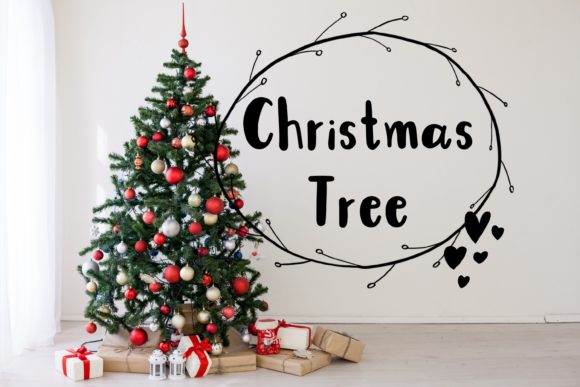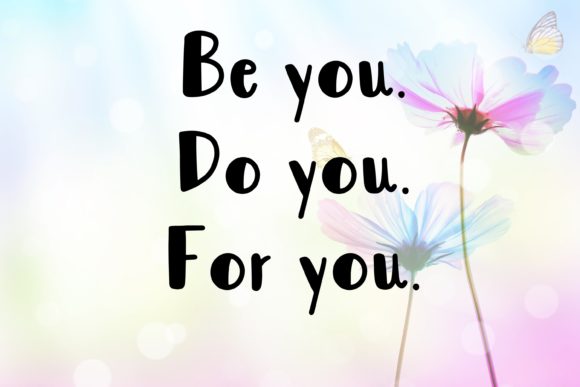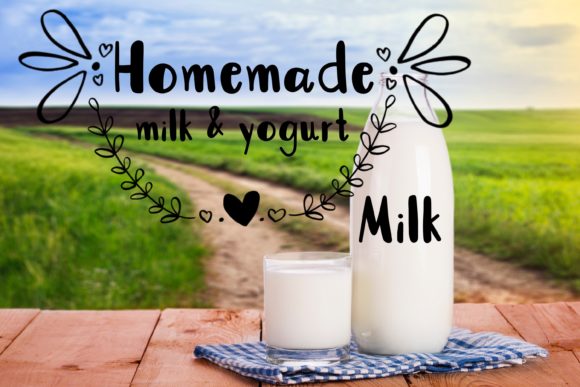
Introduction to Pastel Unicorn Font
As a designer, I still get that rush of excitement when I stumble upon a new, high-quality design resource that just makes my creative project pop. It was exactly that feeling I got when I discovered the Pastel Unicorn Font. I was working on a chalkboard quote for a nursery, and I wanted something that would add a personal and realistic touch. That’s when I found this adorable, handwritten font that perfectly captured the whimsy of the pastel colors I had in mind.
The Pastel Unicorn Font is more than just a pretty face – it’s a valuable tool for designers who want to add a touch of authenticity to their designs. With its transparent background and free download option, it’s easy to incorporate into your next project. Whether you’re working on a chalkboard quote or a teaching material, this font is sure to bring a smile to your face and a touch of magic to your designs.
Key Features of Pastel Unicorn Font
- High-quality design resource ideal for creative projects, offering a unique touch to any visual content.
- Includes a set of 12 pastel-colored fonts with a whimsical, unicorn-inspired design, perfect for adding a touch of magic to your work.
- Features a transparent background, allowing for easy customization and integration into various design elements, such as logos, icons, and graphics.
- Each font is carefully crafted with a high-resolution design (300 DPI) for crisp and clear readability, even in large formats.
- Designed to be versatile and suitable for a variety of creative projects, including digital art, print design, and web development.
Honest Review: Pastel Unicorn Font
I recently stumbled upon the Pastel Unicorn Font, and I must say, it’s a delightful addition to any design resource library. The font features a unique blend of whimsy and sophistication, making it perfect for creative projects that require a touch of magic.
- ✨ High-quality design: The font is meticulously crafted, with smooth lines and precise details that ensure a seamless viewing experience.
- ✨ Versatility: The Pastel Unicorn Font can be used for a wide range of creative projects, from children’s books to fashion branding.
- ⚠️ Limited language support: The font only supports a limited range of languages, which may be a drawback for designers working on global projects.
- ⚠️ Not suitable for all designs: The Pastel Unicorn Font’s playful nature may not be suitable for all design projects, particularly those requiring a more serious tone.
Overall, I’m impressed with the Pastel Unicorn Font’s unique charm and versatility. While it may have some limitations, it’s a valuable addition to any design library, especially for creative projects that require a touch of whimsy.
To get the most out of the Pastel Unicorn Font, use it in designs that require a touch of whimsy and magic, such as:
- Children’s book illustrations
- Party decorations and signs